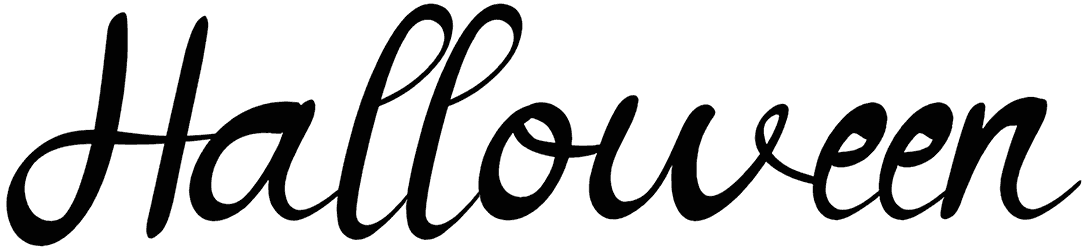
Halloween Font
Whether you’re making a poster, a card, or a digital design, you’ll be pleased with the results if you use the modern and whimsical Halloween handwritten font.